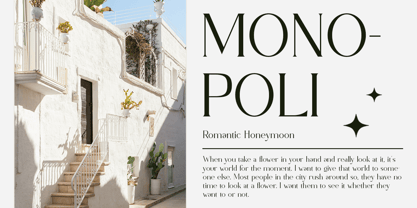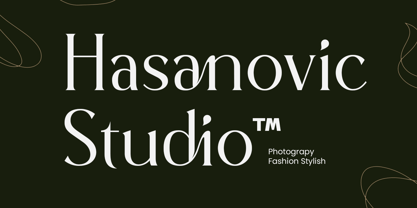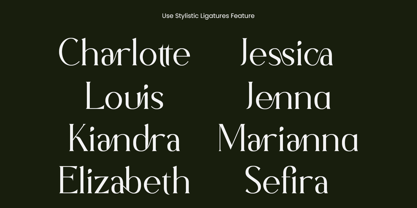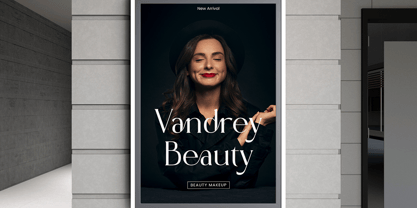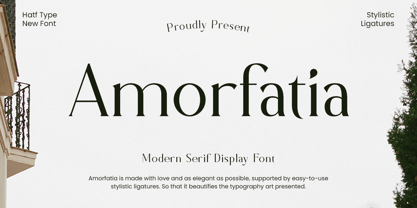
Amorfatia
The Amorfatia Font Family was designed by Asep Rendi and published by Hatftype. Amorfatia contains 1 styles. More about this family
Unleash an aura of contemporary sophistication with AMORFATIA, a striking serif display font that effortlessly fuses classical charm with avant-garde flair. Crafted with meticulous attention to detail and balanced proportions, AMORFATIA imparts an intellectual allure and luxurious allure in every delicately shaped letter.
Celebrate the fluid versatility of this font, making it an impeccable choice for a broad spectrum of applications ranging from brand identity, editorial pieces, logo design, product packaging, to the vibrant world of social media, enabling a visually elegant yet intensely modern presence.
The unique blend of its firm yet tender nature exudes the right nuances for artistic projects demanding an infusion of authoritative elegance. The diversity of AMORFATIA is further intensified with an assortment of alternative characters and ligatures provided, bestowing high levels of design versatility to ensure the creation of distinct and expressive aesthetics. Experience the freedom to explore the realm of visual artistry with AMORFATIA, a font designed to facilitate your personal journey of design expression.